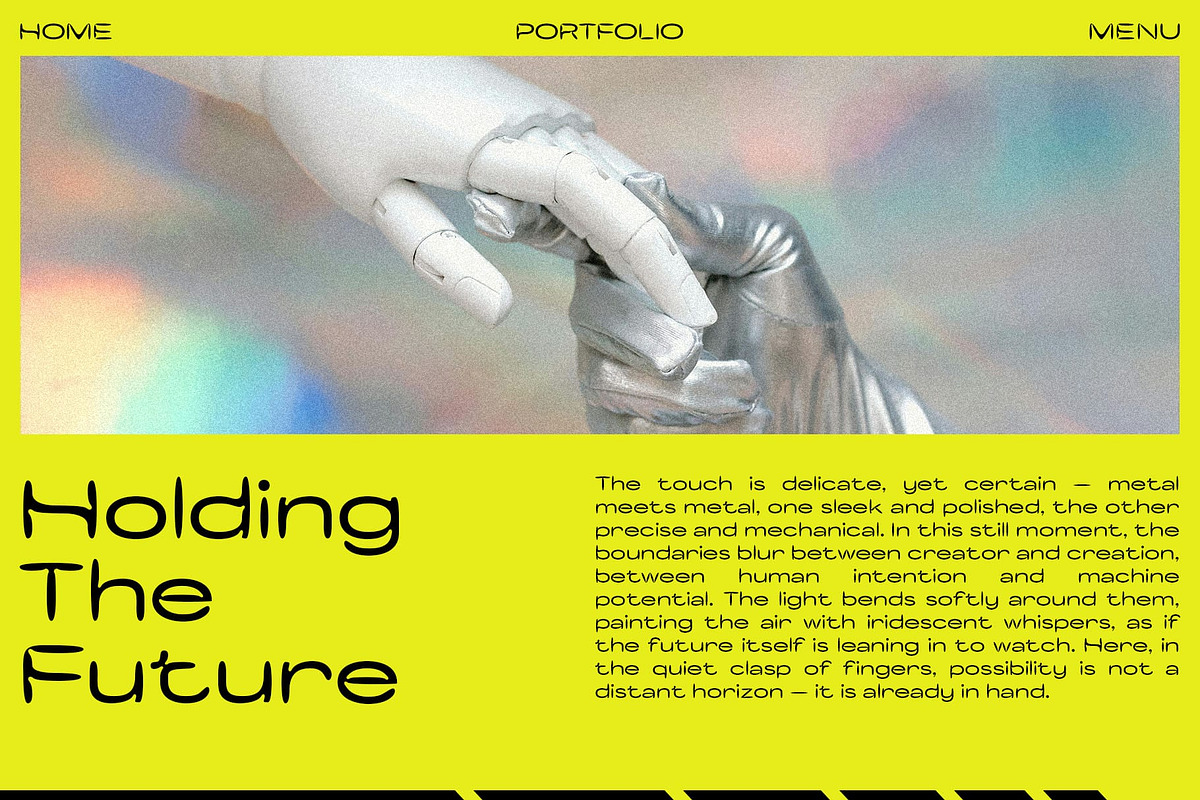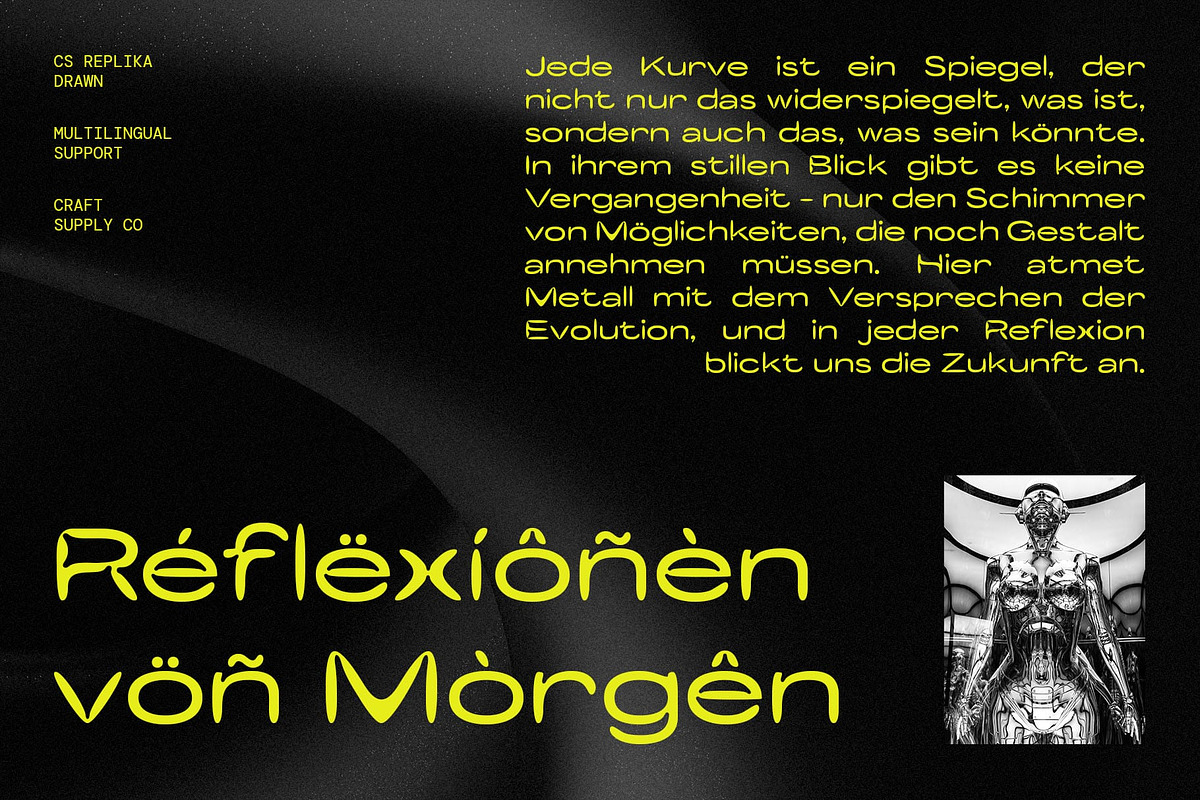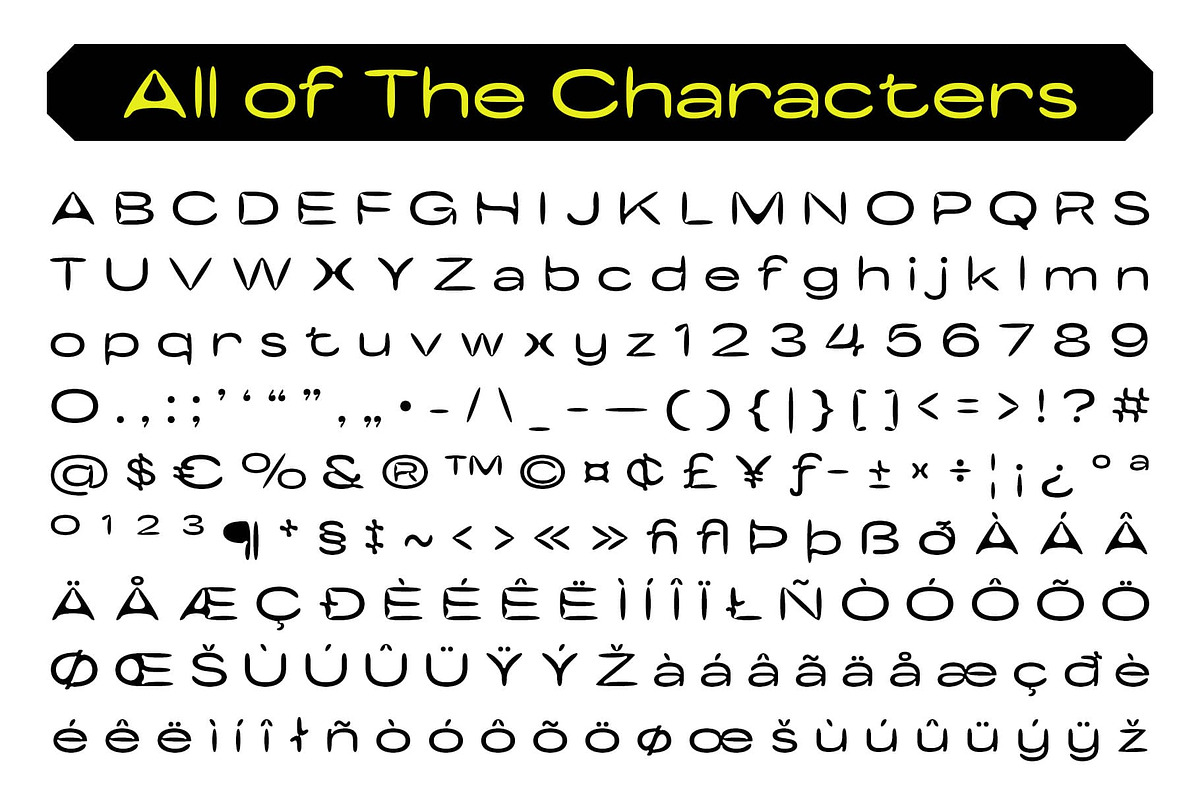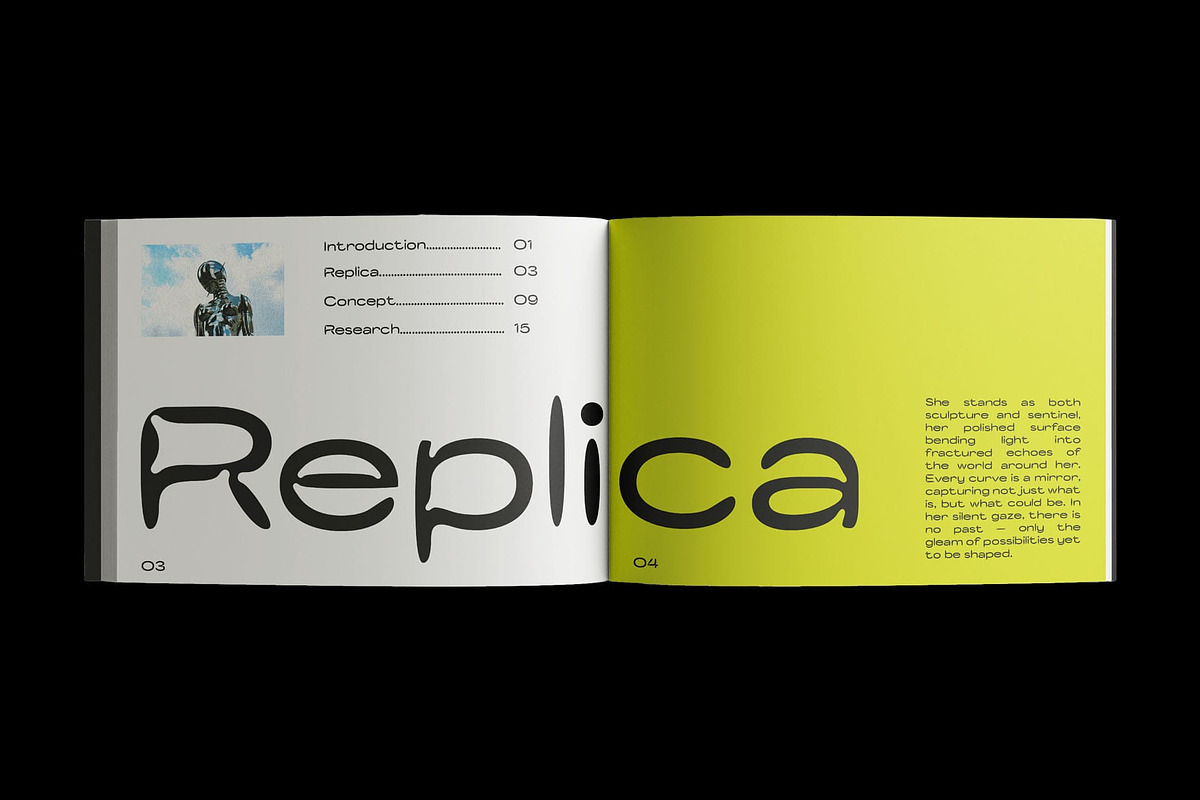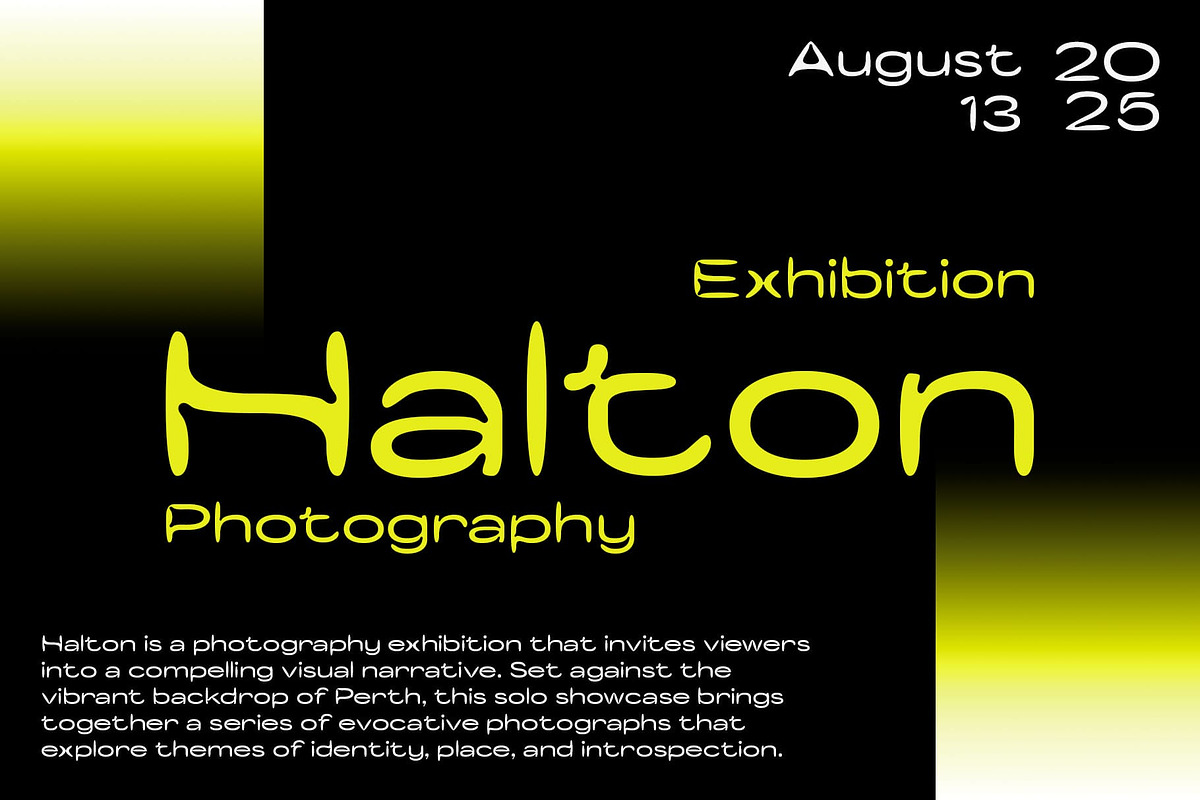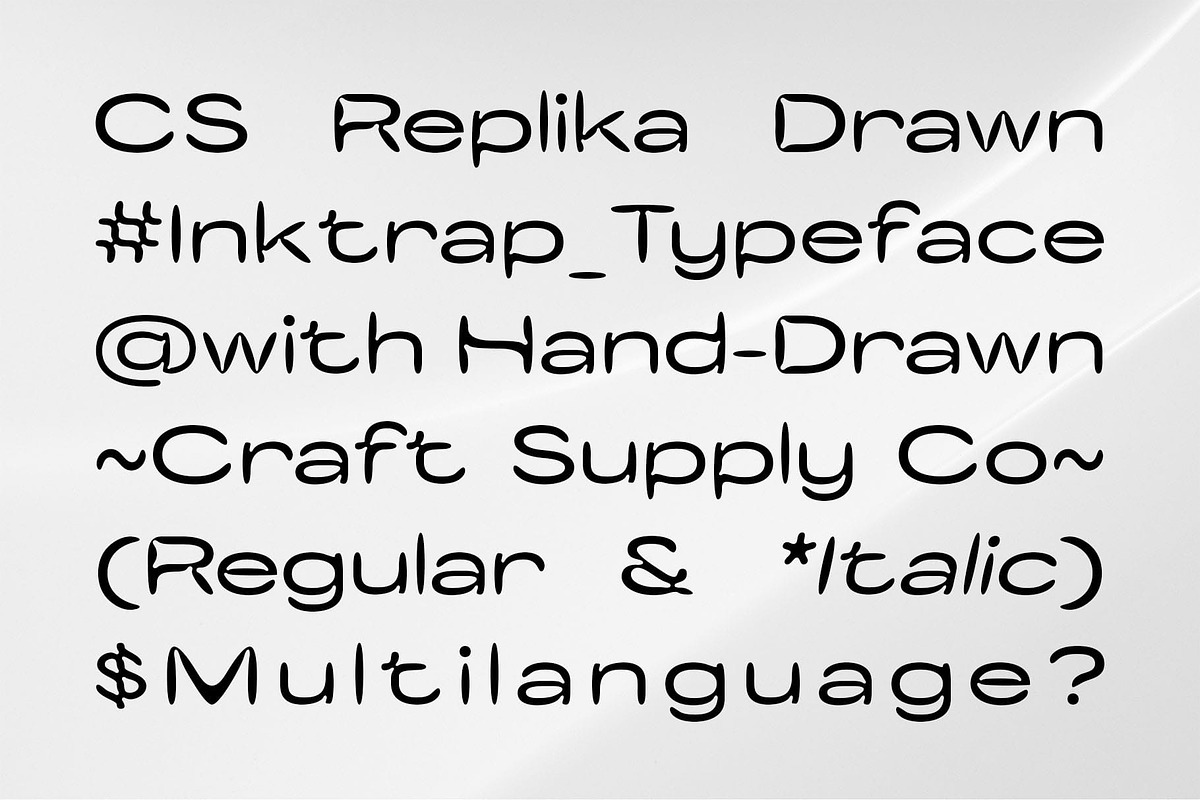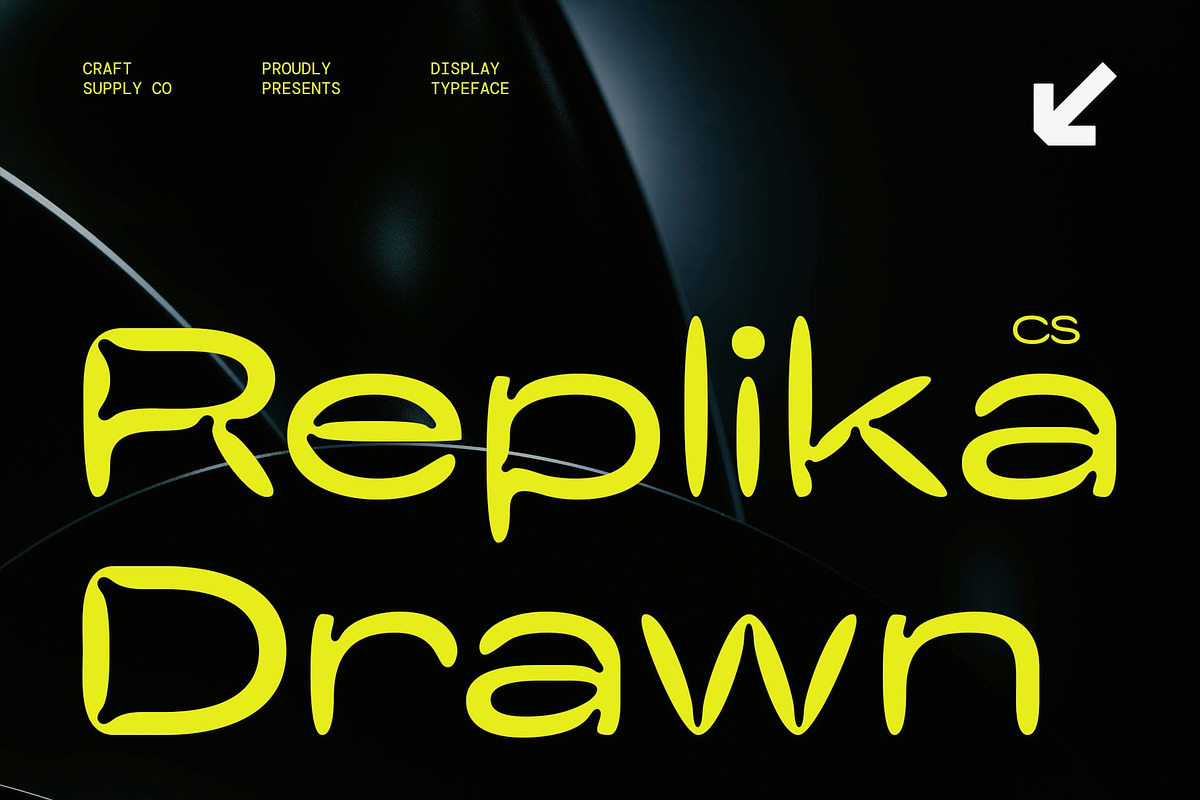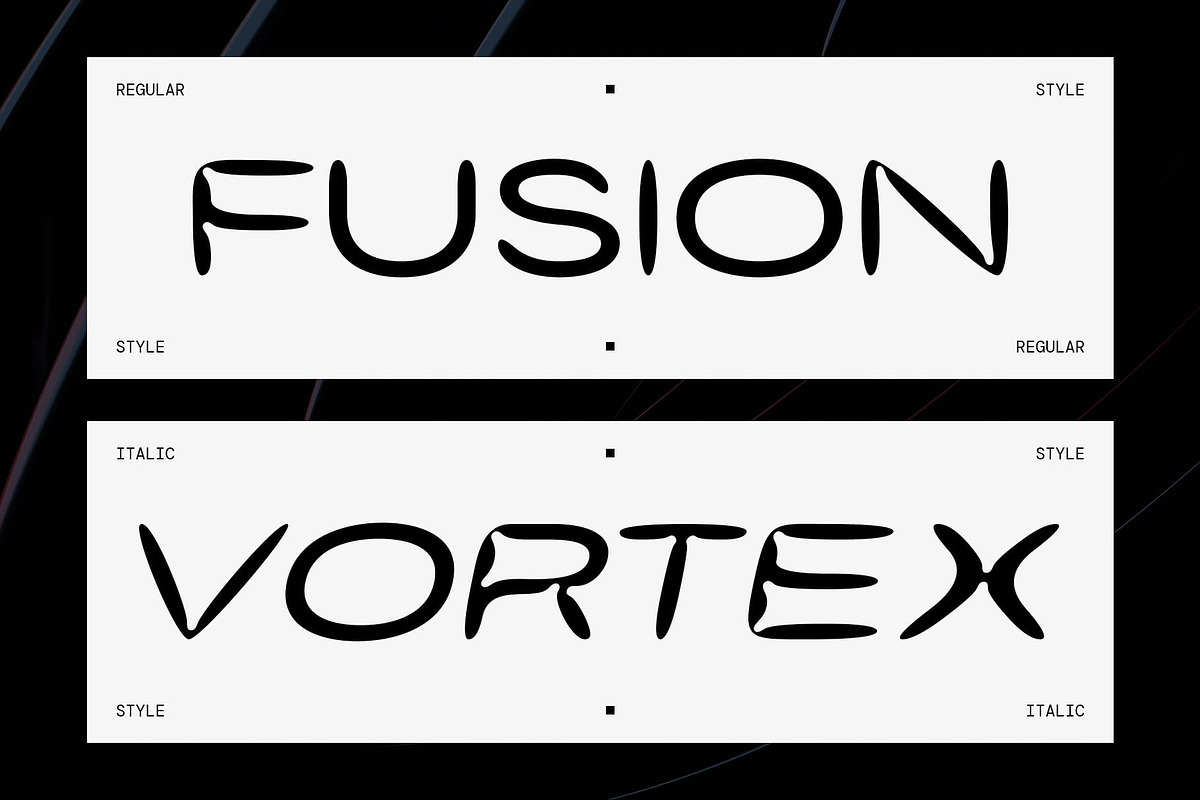
CS Replika Drawn
CS Replika Drawn: Modern Sans Serif with Geometric Precision
Modern Sans Serif Display Font with Inktrap Details CS Replika Drawn is a modern sans serif font featuring clean geometric shapes and precise lines. Its inktrap details add subtle refinement, creating a sleek, professional, and contemporary appearance suitable for a wide range of design applications.
Handmade Drawn Texture for Expressive Detail Enhanced with a subtle drawn effect, each character gains a handcrafted texture that brings depth and personality to the typeface. The manual detailing adds an artistic touch, making the font lively, expressive, and visually engaging.
Balanced Geometry and Artistic Flair This refined font combines geometric precision with handcrafted artistry. Its structured letterforms retain clarity and modernity, while the drawn texture softens the design and adds a unique, characterful presence. This balance ensures sophistication without sacrificing creativity.
Versatile for Professional and Creative Projects Ideal for branding, posters, editorials, and creative design projects, this artistic font adapts seamlessly across different contexts. Its blend of modern geometry, inktrap refinement, and artisanal detail makes it perfect for designs that need to appear contemporary, professional, and distinctive.
Elevate Designs with Sleek Character With its harmonious proportions, inktrap accents, and handmade texture, this sleek and minimalist font delivers a typeface that stands out with both precision and personality. It’s a versatile choice for projects that aim to combine modern professionalism with artistic expression.